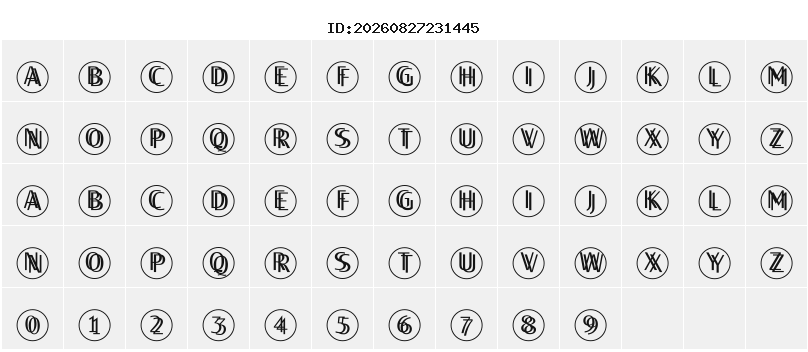
TwilightDisks Preview
About TwilightDisks.ttf
TwilightDisks.ttf is a modern, elegant sans-serif font designed for ultimate readability and visual harmony. Perfect for branding, headlines, web design, and print materials.